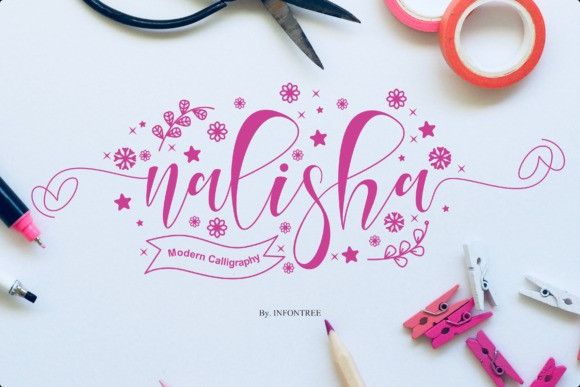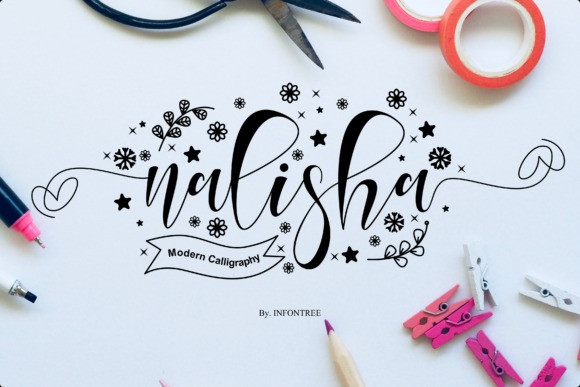
Nalisha Font
Nalisha Script Font is a beautiful and romantic handwritten font. It looks stunning on wedding invitations, thank you cards, quotes, greeting cards, logos, business cards and every other design which needs a handwritten touch.